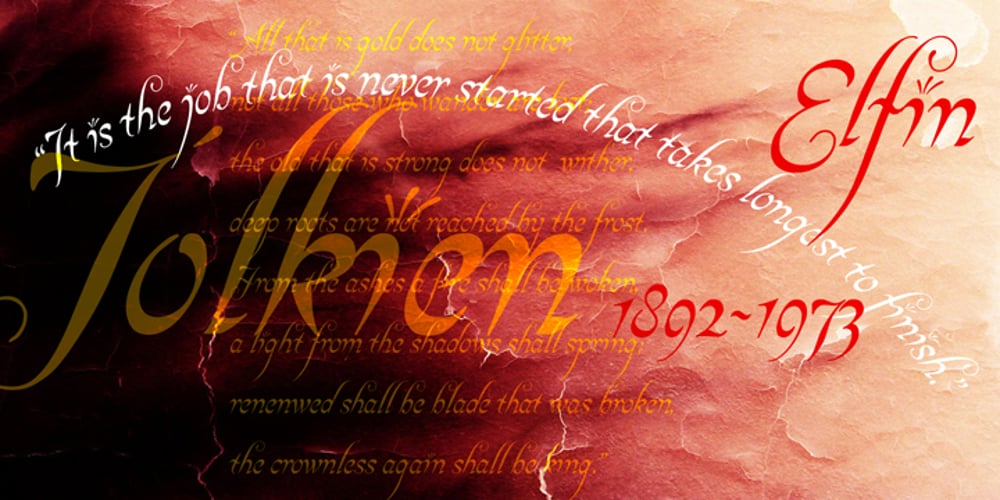
Elfin
Elfin font
Elfin Font Family was designed by published by Lindstrom Design. Elfin contains 1 styles and family package options. A fanciful reinterpretation of the elvish type found inside the ring in J. R. Tolkien’s “Lord of the Rings”. Elfin has a very small x height with large ascenders and descenders. Unlike most scripts, Elfin characters connect from the x height, not the base line. If you’re looking for a magical, Disneyesque, fairies-prancing-about type, you need Elfin. Elfin contains upper and lower case letters, old style figures (numbers), punctuation, foreign accents. Indulge the Peter Pan that lurks within!